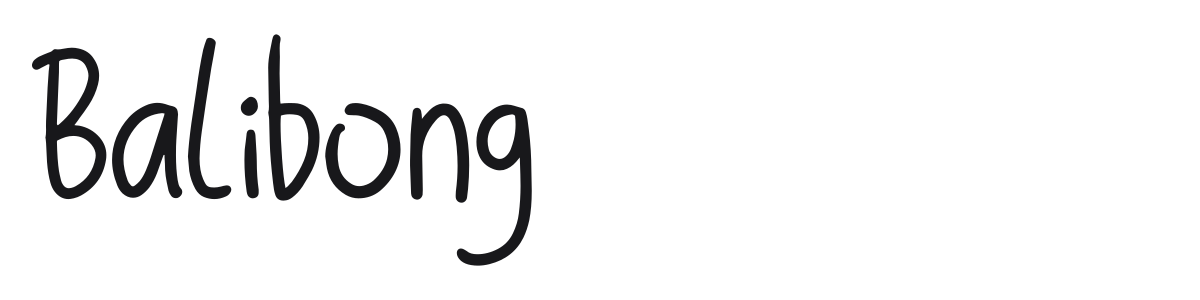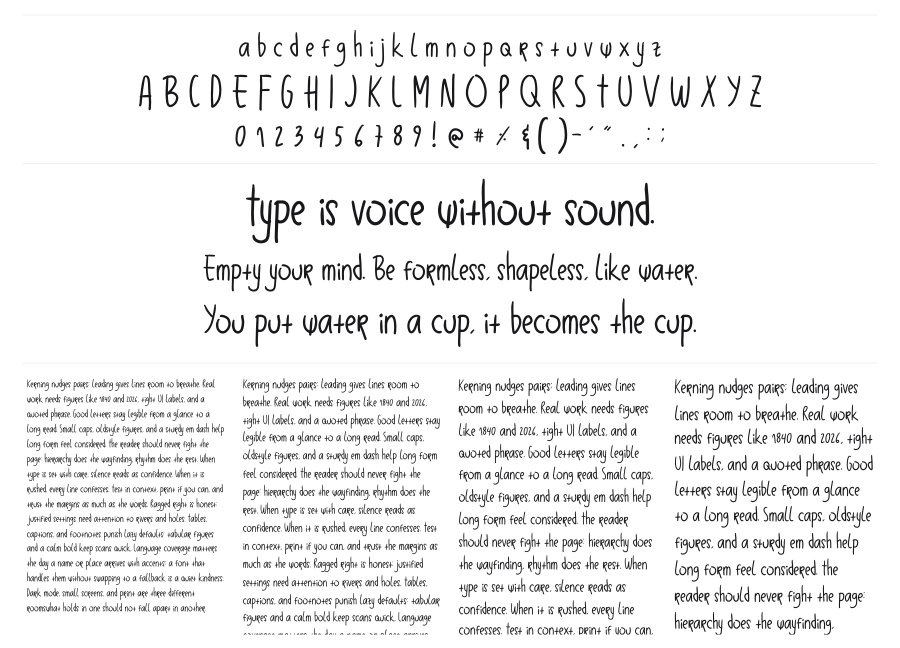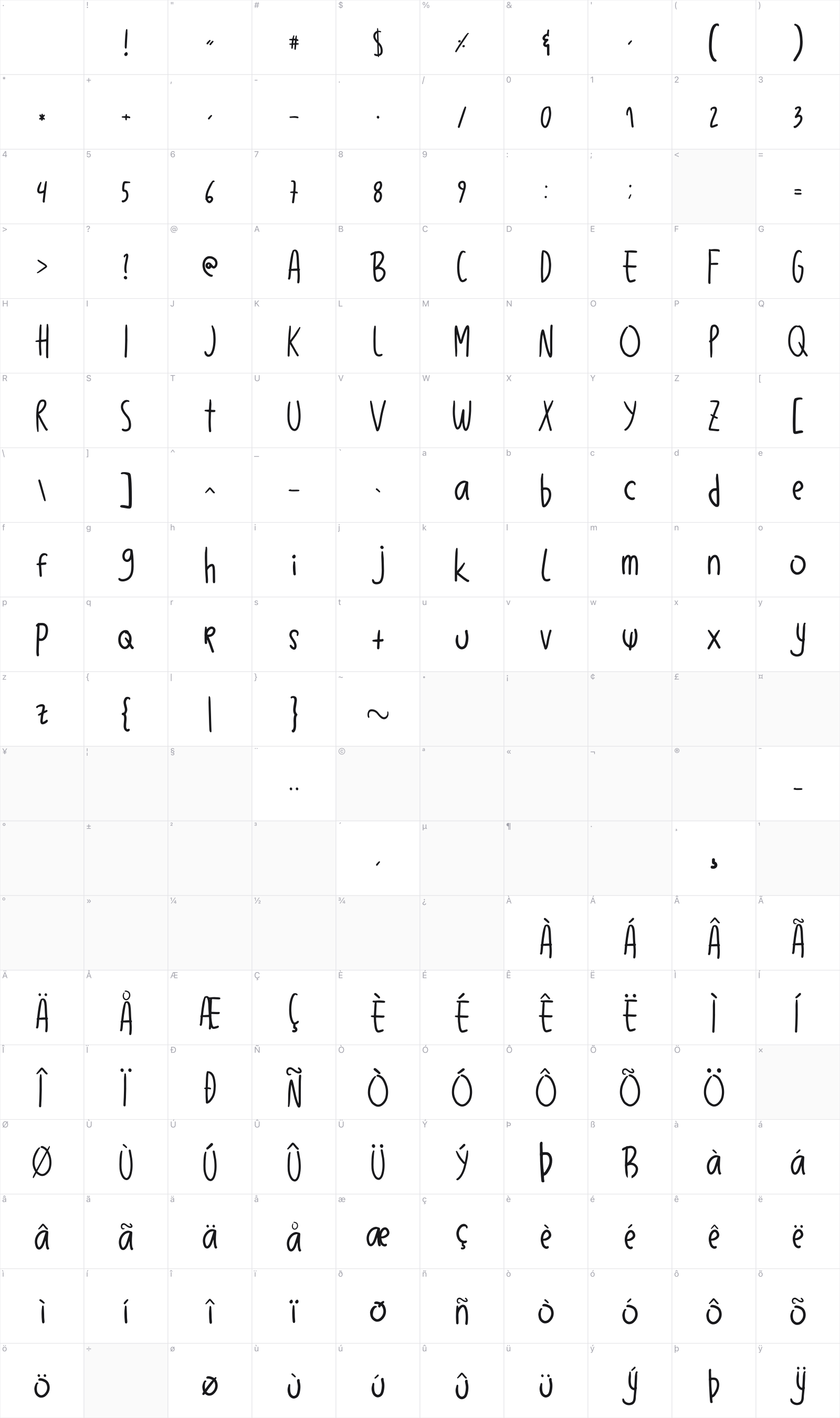
Balibong
Balibong is a casual handwritten font with rounded, marker-style strokes and a relaxed organic rhythm. The slightly uneven construction and soft terminals give it a genuine hand-drawn feel rather than a mechanical imitation. It works well for branding and packaging that needs warmth and a personal touch.